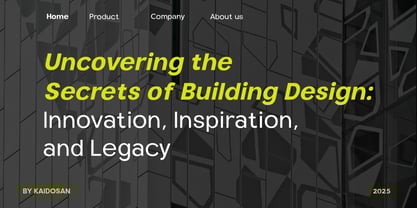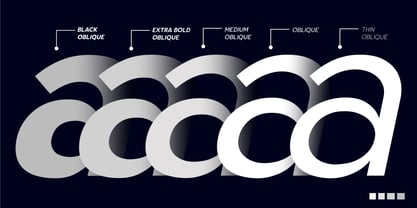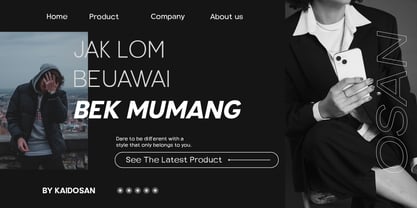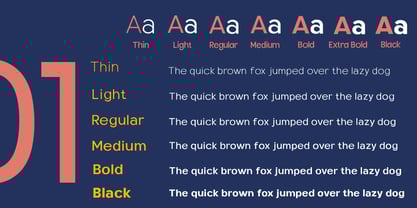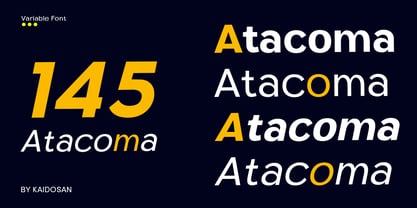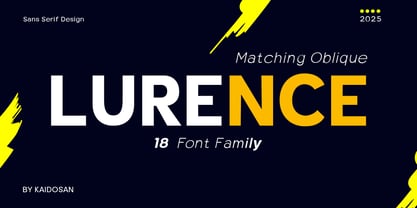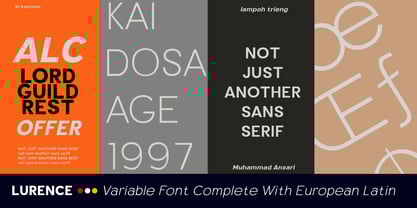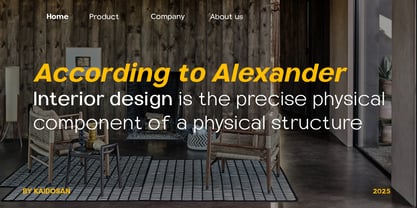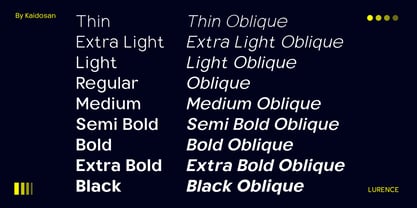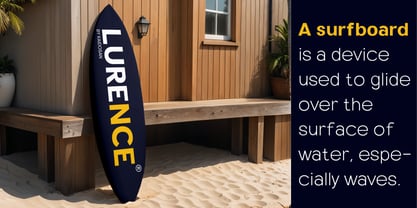
Lurence
by Kaidosan
The Lurence Font Family was designed by Muhammad Ansari and published by Kaidosan. Lurence contains 18 styles and family package options. More about this family
Lurence is a sans serif font that emphasises simplicity and balance. With its bold character and perfect proportions, it gives a modern and dynamic feel in a variety of design applications and is also ideal for design projects that require a contemporary and elegant feel.
Designers: Muhammad Ansari
Foundry: Kaidosan